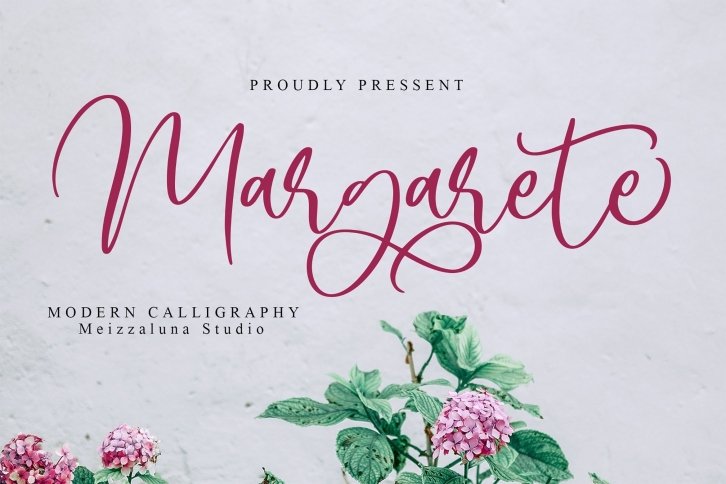
Margarete is an equally charming and elegant script font. It looks stunning on wedding invitations, thank you cards, quotes, greeting cards, logos, business cards, and every other design which needs a handwritten touch.